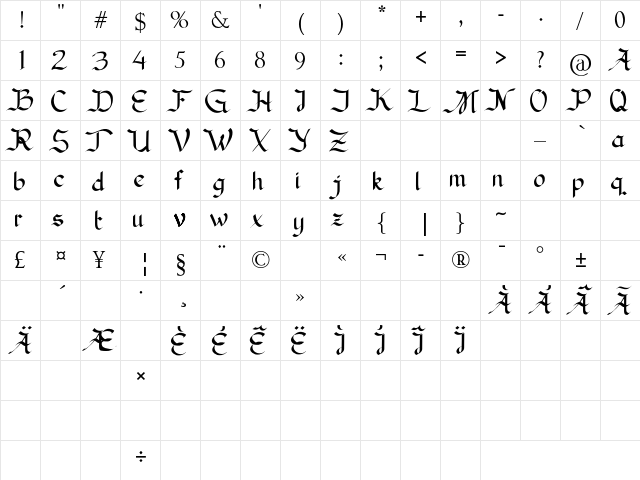
Nieuwegein Regular Font Preview
Nieuwegein Regular
Design Context for Nieuwegein Typeface
Nieuwegein is a composed and adaptable typeface that performs quietly and consistently across a wide range of design contexts.